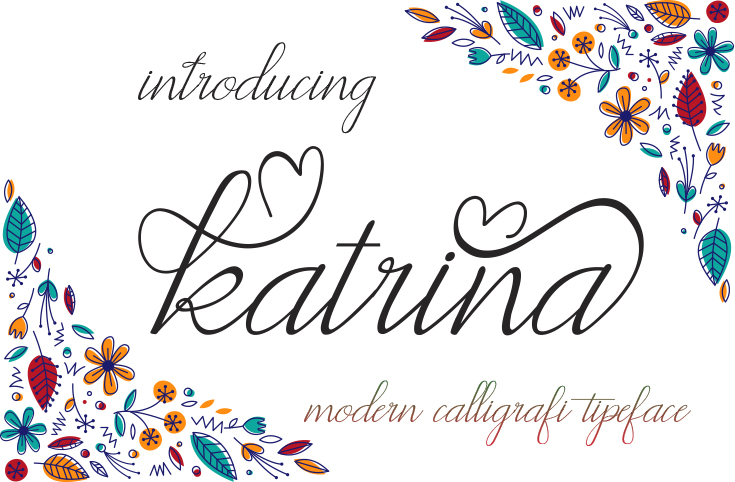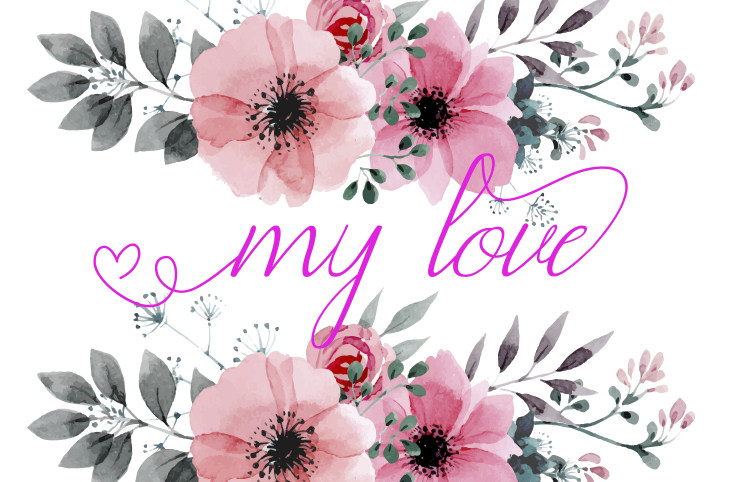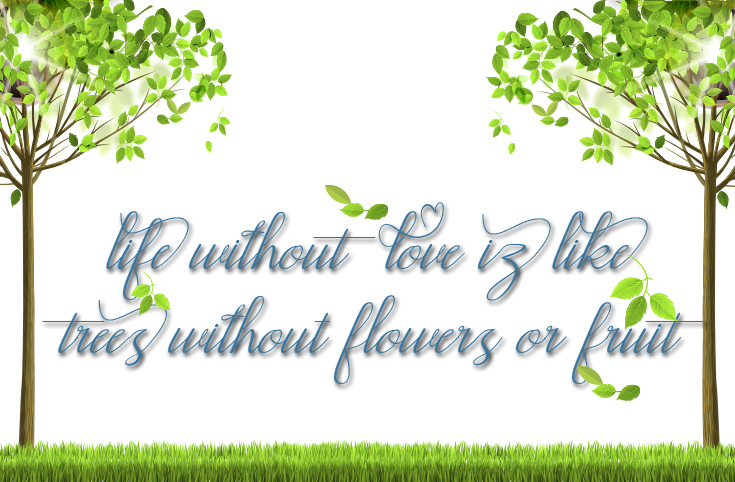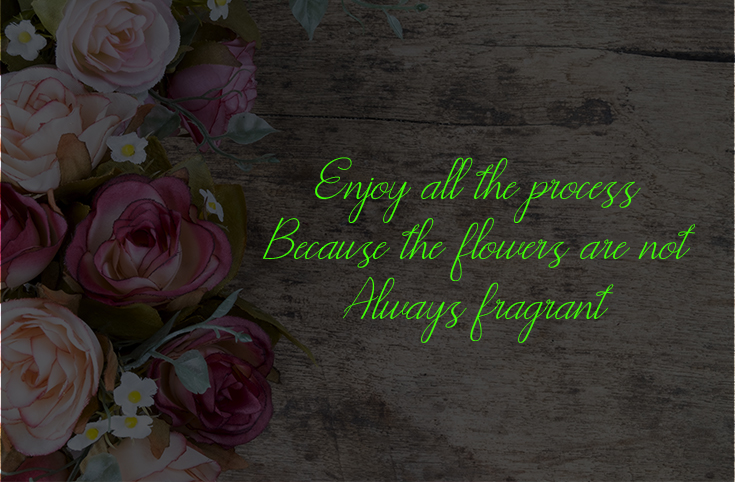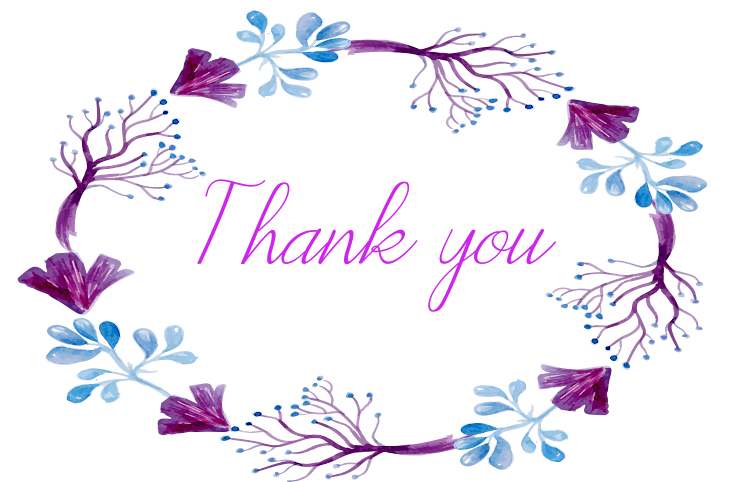
Katrina Font
About Katrina Font
Katrina is a beautiful script with a lot of movement and flow, giving it a romantic feel and look. Use this handcrafted script font across a wide range of projects for stunning results.